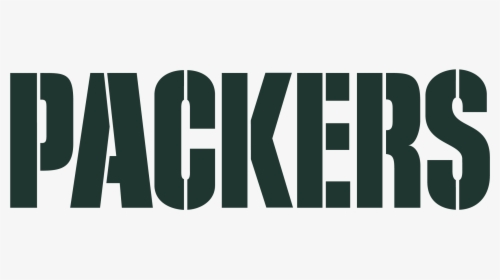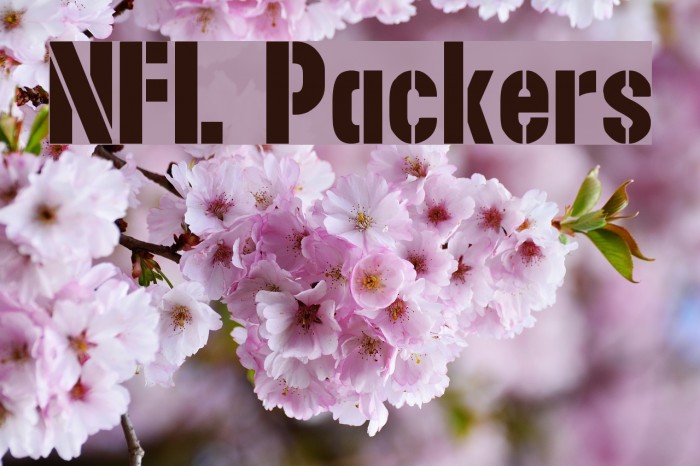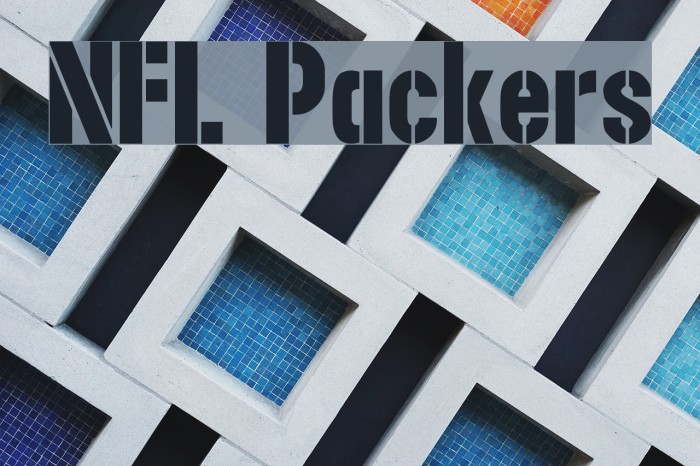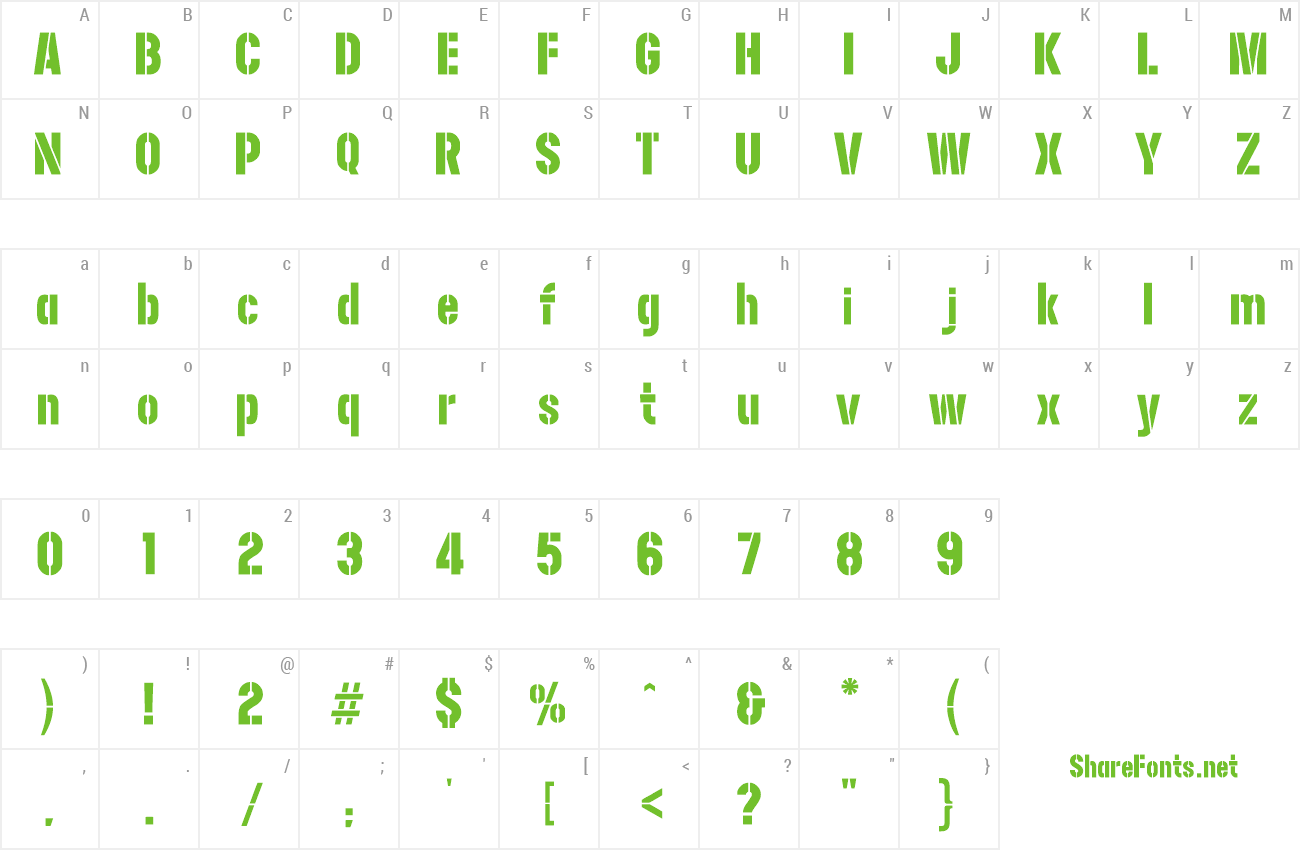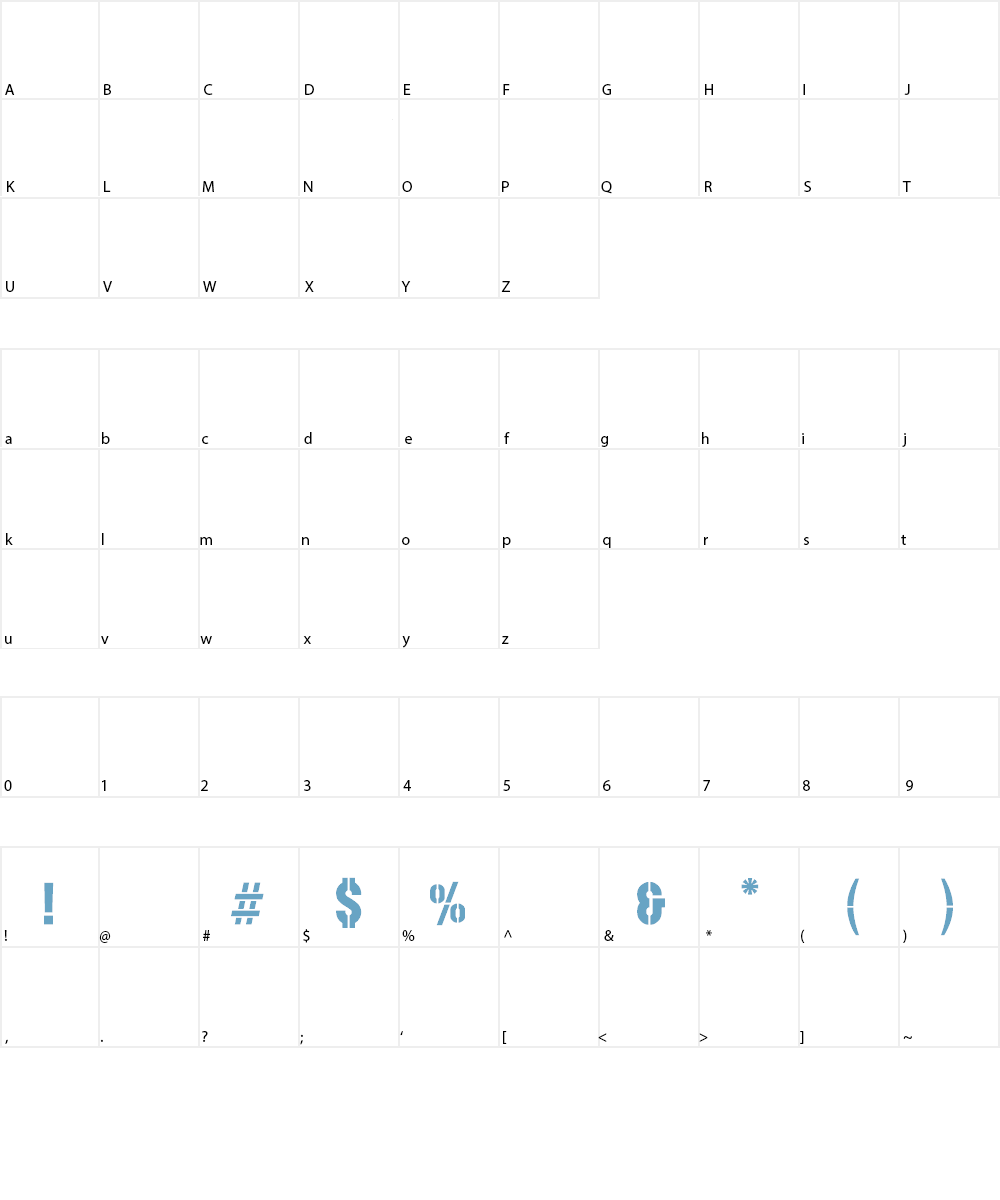
Green bay packers font free. In fancy stencil army 82633 downloads 47 yesterday. Download the free font replicating the green bay packers logo and many more at the original famous fonts. The best website for free high quality green bay packers fonts with 27 free green bay packers fonts for immediate download and 50 professional green bay packers fonts for the best price on the web. Download free nfl packers font view its character map and generate text based images or logos with nfl packers font online.
The wordmark is set in a stencil font which is very similar to gi. The green bay packers logo features a white g in a green oval with a yellow outline with its wordmark beneath. Submit a font tools. You can download the font for free here.